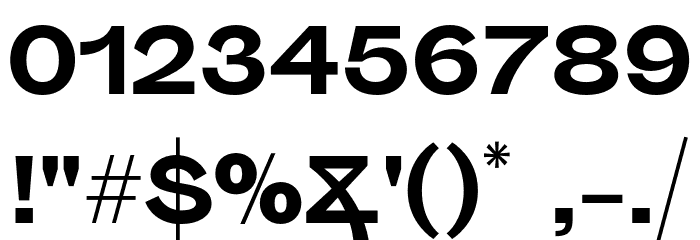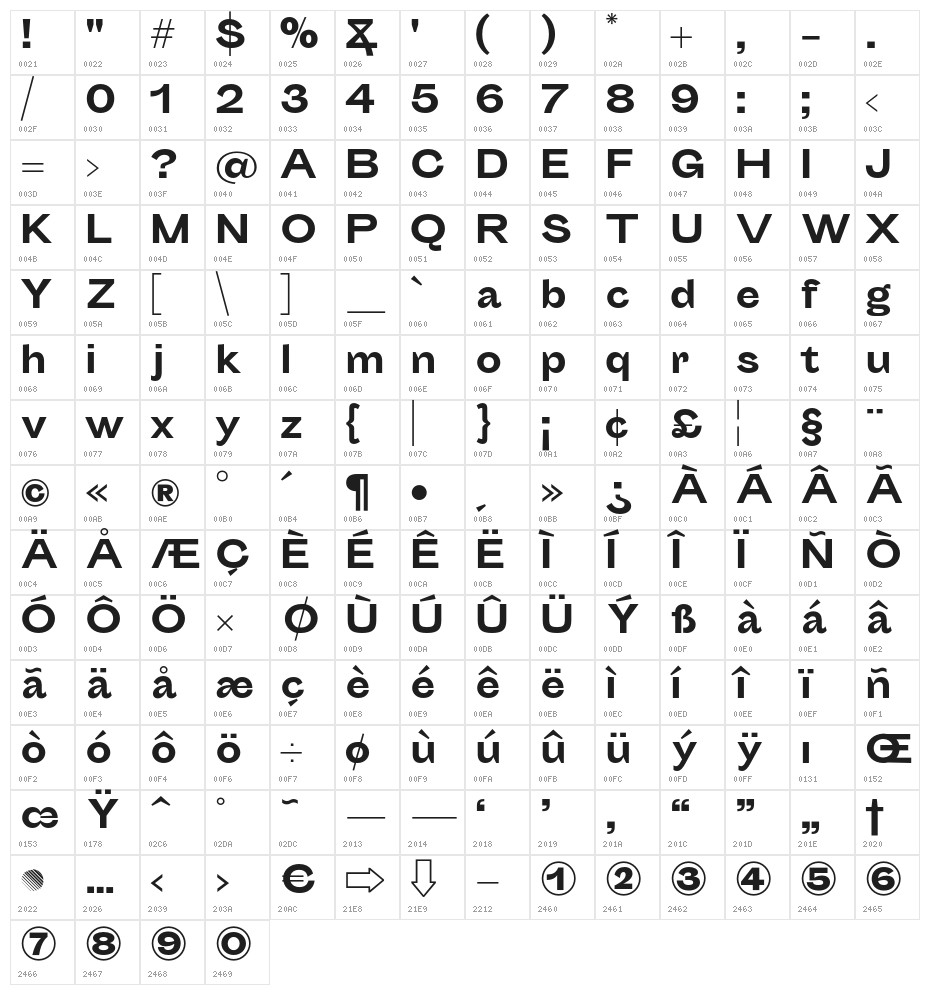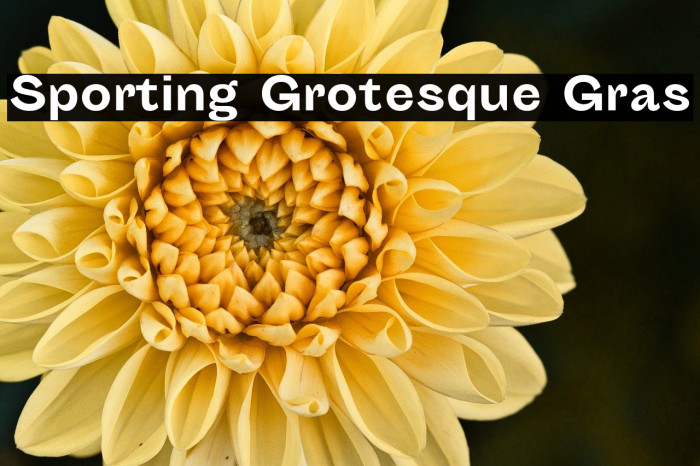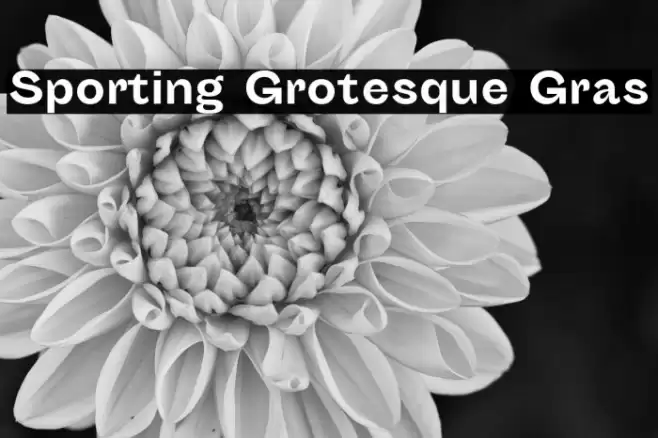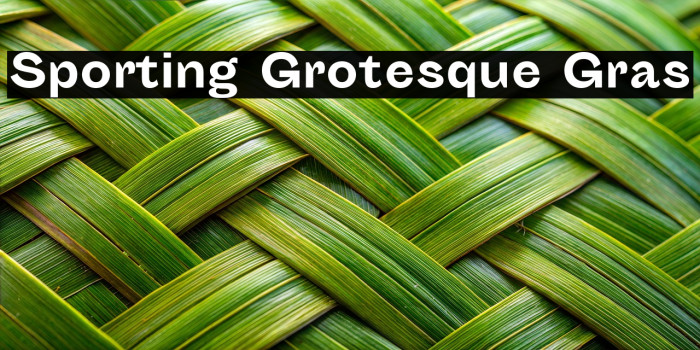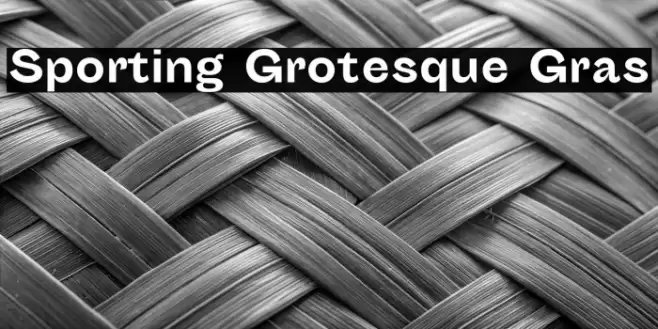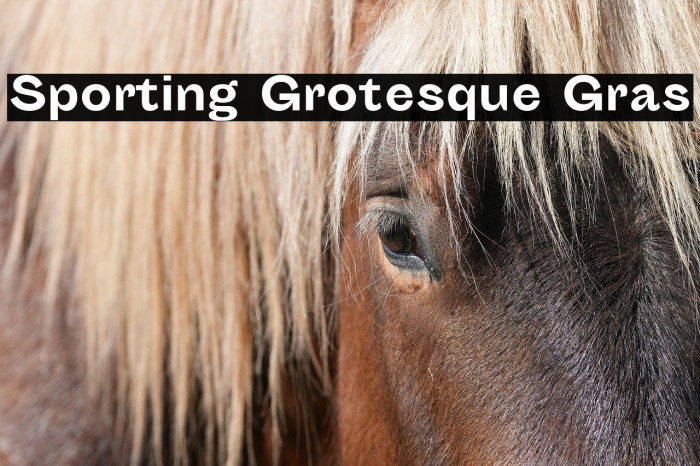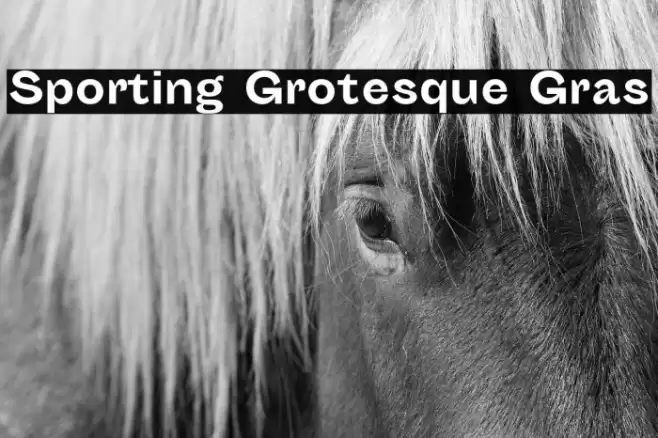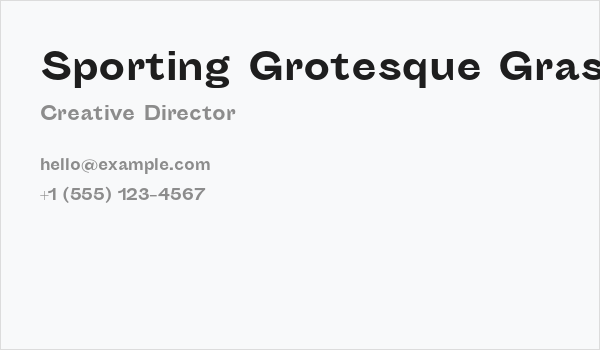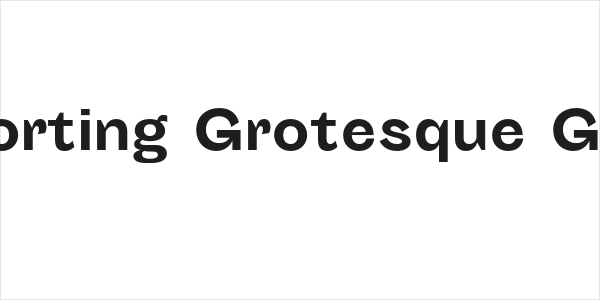
Sporting Grotesque Gras Font
Sporting Grotesque Gras Description
This typeface features a bold and clean design, characterized by its strong geometric shapes and uniform stroke widths. The uppercase letters are robust and assertive, while the lowercase letters maintain a consistent and harmonious appearance. The numerals are clear and easily legible, making them suitable for various applications. The special characters are well-integrated, maintaining the overall aesthetic of the typeface. This font exudes a modern and professional feel, making it versatile for both digital and print media.
| Proposed Projects | Ideal for branding, advertising, headlines, and digital interfaces where a strong, modern presence is required. |